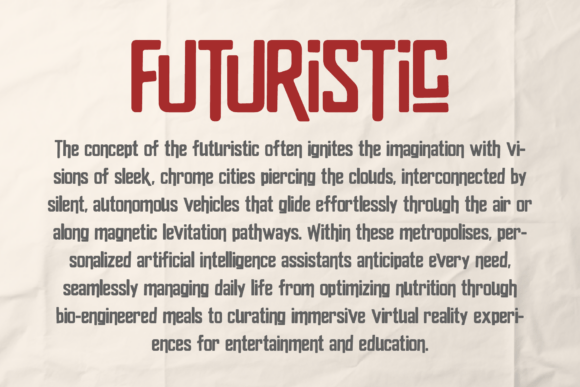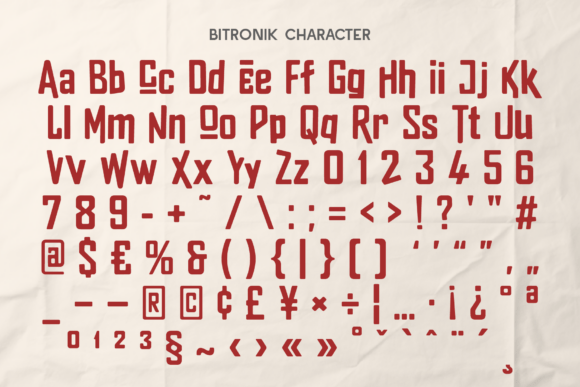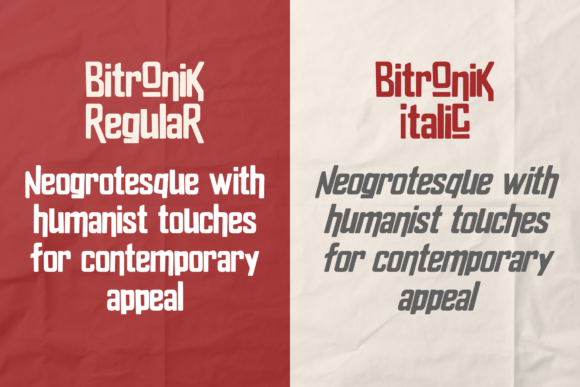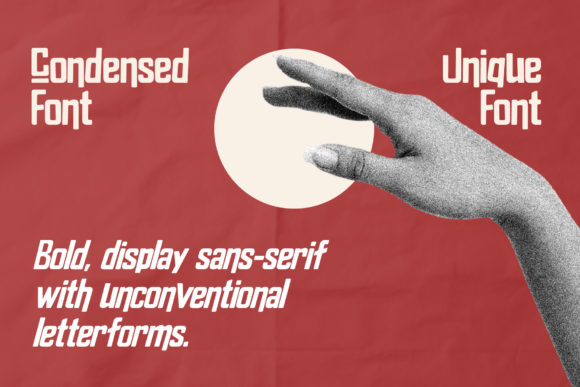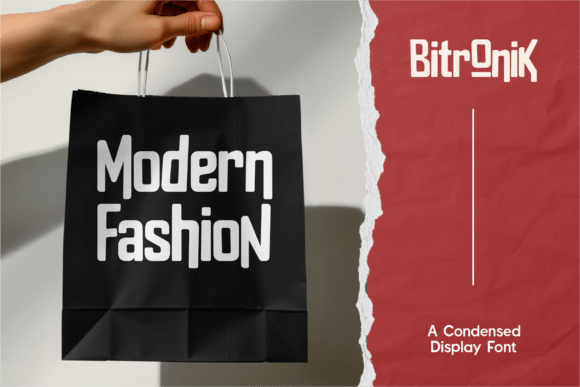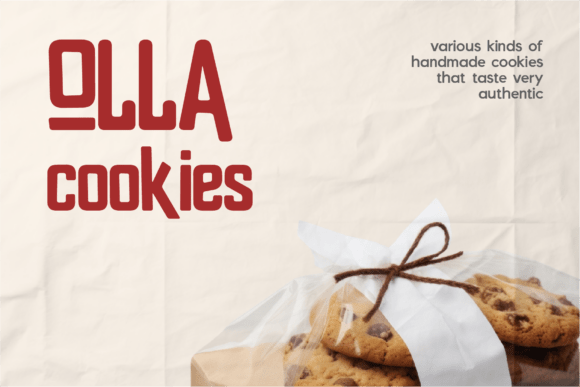
The Future is Here: Introducing Bitronic Font
As a designer, have you ever felt like you’re stuck in a creative rut, struggling to find the perfect font to bring your futuristic vision to life? You know, that moment when you’re staring at a blank screen, and suddenly, a burst of inspiration hits you – a sleek, condensed display font that screams ‘innovation’ and ‘tech-savviness’.
Enter Bitronic Font, a game-changing, sharp, and edgy typeface designed specifically for the modern digital world. With its clean, geometric letterforms and subtle modular touches, this font is a perfect fit for tech-inspired designs, posters, UI interfaces, logos, and branding that needs a strong digital personality.
Whether you’re working on a cutting-edge startup, a futuristic event poster, or a music visual project, Bitronic Font is sure to elevate your design game and leave a lasting impression on your audience.
Key Features of Bitronic Font
- Unique Character Set: Bitronic Font features a unique character set that includes a wide range of symbols, icons, and glyphs, making it ideal for use in graphic design, digital art, and other creative applications.
- Multi-Lingual Support: The font supports multiple languages, including English, Spanish, French, German, Italian, and many others, making it a versatile choice for international applications.
- Customizable: Bitronic Font can be customized to fit specific design needs, with options for color, size, and style, allowing designers to create unique and personalized designs.
- High-Quality Typography: The font features high-quality typography with precise letterforms, making it suitable for use in professional applications, such as business cards, brochures, and other marketing materials.
Bitronic Font Review
As a designer, I had the chance to experiment with the Bitronic Font. Here’s my honest review.
- The font has a unique and futuristic feel to it, making it perfect for sci-fi and tech-related projects.
- The Bitronic Font is highly legible, even at small font sizes, which is a must for any font.
- The font family is quite comprehensive, including various weights and styles, making it easy to find the right one for your project.
- It’s also worth noting that the font is highly customizable, allowing you to tweak its appearance to fit your project’s needs.
- The font may not be suitable for projects that require a more traditional or classic look, as it’s quite modern and futuristic.
- Some users may find the font too bold or overpowering, especially at larger font sizes.
Overall, I think the Bitronic Font is a solid choice for designers who are looking for a unique and futuristic font. While it may have some limitations, its versatility and customizability make it a great option for a wide range of projects.
Tips for Getting the Most Out of Bitronic Font
To get the most out of Bitronic Font, use it for titles, headings, and emphasis in your designs. You can also pair it with other fonts to create a unique and modern look. Experiment with different font sizes, colors, and alignments to find the perfect combination for your design.
Bitronic Font is commonly used in modern designs, such as:
- Graphic designs
- Branding materials
- Advertising materials
- Digital products